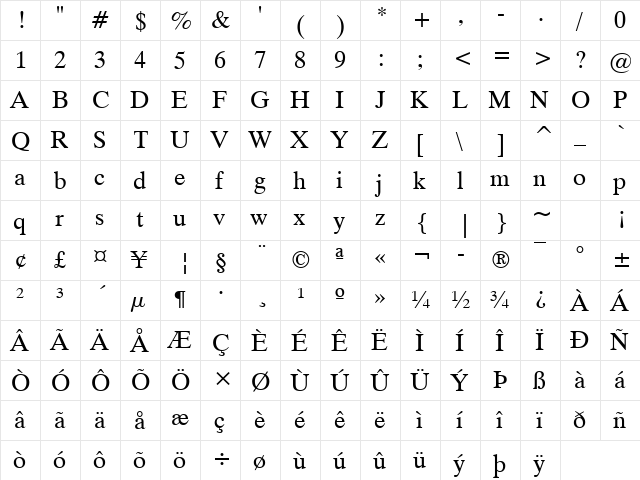
Bitstream CyberBase Roman
Design Context for Bitstream CyberBase Typeface
Bitstream CyberBase channels digital-age aesthetics through its sharp, structured letterforms — ideal for brands that want to signal innovation.